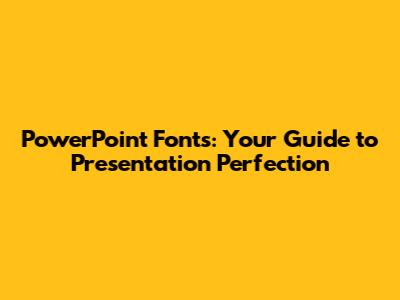
PowerPoint Fonts: Your Guide To Presentation Perfection
Hey everyone! Ever feel like your PowerPoint presentations could use a little oomph? Maybe they're a bit… bland? Well, a big part of creating engaging presentations boils down to choosing the right fonts. PowerPoint fonts aren't just about picking something that looks pretty; they play a huge role in how your audience perceives your message. They can make your slides look professional, fun, or anything in between! Let's dive into the world of PowerPoint fonts and explore how you can use them to create killer presentations. This guide is all about helping you understand everything from the best fonts to use, where to find them, and how to avoid common font-related pitfalls. So, grab a cup of coffee, and let's get started!
Why Fonts Matter in PowerPoint Presentations
Okay, so why are PowerPoint fonts so important, anyway? Think of your presentation as a visual story. The text is the core of that story, and the font is the voice that tells it. It's the first thing your audience sees, and it sets the tone for everything else. Choosing the right font can make the difference between a presentation that captivates and one that puts people to sleep. Seriously! A well-chosen font can make your information more accessible, easier to read, and more memorable. It helps to establish your brand identity, create visual interest, and guide the viewer's eye. On the other hand, using the wrong font can confuse your audience, make your slides look cluttered, and even undermine your credibility. Choosing fonts is like choosing the right clothes to look professional, it's about making sure your message is well received and understood. You wouldn't wear mismatched socks to an important meeting, right? The same goes for fonts! Imagine trying to read a presentation with Comic Sans in tiny font size. Not a good look, and definitely not reader-friendly. So, selecting the right fonts is critical for effective communication. So, understanding how to use fonts to enhance your message is the key to creating presentations that stick with your audience long after you've finished speaking. Now, let’s dig a little deeper into the impact PowerPoint fonts have on the overall presentation.
Readability and Legibility
One of the most important things when selecting PowerPoint fonts is readability. Readability refers to how easily individual characters can be recognized, while legibility refers to how easily the text as a whole can be read. These two factors work hand-in-hand to determine whether your audience can effortlessly absorb the information you're presenting. When you choose a font for your presentation, you need to think about the environment in which it will be viewed. Is it a brightly lit room or a dimly lit one? Will people be viewing the presentation on a large screen or their laptops? These factors can affect how easy the font is to read. Choose fonts that are clear and simple and make sure the size is appropriate for the viewing environment. Avoid fonts that are overly stylized or have complex serifs, as these can be difficult to read at a distance. You should be using sans-serif fonts such as Arial, Calibri, or Helvetica for body text and headers. These are generally more readable on screens. Make sure your font size is large enough. A good rule of thumb is to use a font size of at least 24 points for body text and 32 points or more for headings. You should also consider the use of color and contrast. Make sure your text contrasts well with the background color to make it easier to read. For example, black text on a white background is generally the most readable option. Proper use of fonts will make your presentations look cleaner and more professional. Ultimately, the goal is to create a presentation that is easy for your audience to understand and remember. By choosing readable and legible fonts, you're making a positive impact on the overall effectiveness of your presentation. By keeping these principles in mind, you can select fonts that effectively communicate your message and engage your audience.
Establishing Tone and Style
Besides readability, PowerPoint fonts play a massive role in setting the tone and style of your presentation. Fonts can be used to convey a variety of moods and personalities. Selecting the right font can help you to reinforce your message and connect with your audience on an emotional level. You must know what messages do you need to send to your audience. For a formal presentation, such as a business proposal, you might want to use a more traditional font, such as Times New Roman or Arial. These fonts convey professionalism and sophistication. In contrast, for a more informal presentation, like a company update or a fun project, you might choose a more modern font, such as Open Sans or Lato. These fonts can help to create a more relaxed and engaging atmosphere. The style of your font can also reflect your brand's personality and values. Consistency is also the key. Using the same fonts throughout your presentation will help to create a cohesive and professional look. Avoid using too many different fonts. A good rule of thumb is to stick to two or three fonts at most. Use one font for headings, another for body text, and potentially a third for emphasis or special effects. Think about your target audience. Who are you trying to reach with your presentation? What kind of tone and style will resonate with them? Do your research. Look at other presentations in your industry or field. What fonts are they using? What kind of tone and style are they conveying? Selecting the perfect font will strengthen the impact of your message and keep your audience captivated. By carefully choosing the fonts for your presentation, you can create a unique visual identity that aligns with your brand and message. So, go forth and create presentations that are both informative and visually stunning.
Enhancing Visual Appeal
Finally, let's talk about the visual appeal of your presentations, and how PowerPoint fonts fit into that. Fonts are a critical visual element and can significantly enhance the overall look and feel of your slides. Your font choice can make your presentation pop and make it more interesting to look at. One way to enhance visual appeal is to choose fonts that complement each other. Avoid using fonts that clash or are too similar. Use a combination of fonts to create visual variety and interest. It can be a heading font and a body font. Another way to enhance visual appeal is to use font size, weight, and color strategically. Use larger font sizes for important headings and subheadings. Use bold or italic fonts to highlight key information. Use color to create contrast and draw attention to specific elements. Experiment with different font pairings. There are many online resources that can help you find font combinations that work well together. Keep in mind that simplicity is key. Avoid using too many fonts or styles, as this can make your presentation look cluttered and unprofessional. Think about the overall design of your presentation. The font is just one element of the visual design. Make sure your font choices align with the overall theme and style of your presentation. When used effectively, PowerPoint fonts can transform a dull presentation into a visual treat. In the end, the right font can make your presentation memorable and more enjoyable to experience. Remember, your goal is to create a presentation that is both informative and visually engaging.
Best Fonts to Use in PowerPoint
Alright, now that we've covered why fonts are so important, let's talk about some of the best PowerPoint fonts you can use. Choosing the right font can be a game-changer! Here’s a breakdown of some of the top picks and why they work so well.
Sans-Serif Fonts
Sans-serif fonts are generally the go-to for presentations, especially on screens. They are clean, modern, and easy to read. Sans-serif fonts are fonts that do not have small lines at the end of each stroke. Here are some of the best:
• Arial: A classic, clean, and widely available font. It's a safe bet for any presentation.
• Helvetica: Another timeless choice, Helvetica is known for its clarity and legibility. It's great for both headings and body text.
• Calibri: The default font for many Microsoft Office applications, Calibri is modern and easy on the eyes.
• Open Sans: A popular Google font that's free to use and looks great on-screen. It's very versatile.
• Lato: Another excellent Google font, Lato has a friendly and approachable feel.
These fonts are perfect for conveying a modern, clean, and professional look. They are incredibly versatile and work well in various settings, from business presentations to educational lectures.
Serif Fonts
Serif fonts have small lines at the end of each stroke, which can add a touch of elegance and sophistication. They can be used effectively for headings or for a more classic feel, but be careful with them for body text, as they can sometimes be less readable on screens. Here are a few options:
• Times New Roman: A classic serif font that conveys a sense of formality and tradition.
• Georgia: Designed for readability on screens, Georgia is a great choice for both headings and body text.
Serif fonts can be a good choice if you're going for a more traditional or formal style, but make sure the font size is large enough to ensure readability.
Other Font Considerations
While Arial, Calibri, Helvetica, and Open Sans are generally good choices, remember to consider:
• Font Pairing: Don't just pick one font! Try pairing a sans-serif for headings with a different sans-serif or a serif for body text.
• Font Weight: Use different font weights (bold, regular, light) to create visual hierarchy.
• Font Size: Keep your font sizes large enough for easy viewing (at least 24 points for body text).
• Font Color: Ensure good contrast between your font and background colors.
Where to Find PowerPoint Fonts
So, you’re ready to start using some amazing PowerPoint fonts but where do you find them? The good news is, you have a ton of options!
PowerPoint's Built-In Fonts
PowerPoint comes pre-loaded with a variety of fonts, including Arial, Calibri, Times New Roman, and many more. These fonts are a great starting point, and they're readily available for all your presentations. You can access the font options by clicking on the text box and going to the font dropdown menu in the Home tab. PowerPoint also makes it easy to add more fonts, including those you have downloaded or purchased. You can easily navigate the font menu and search for the perfect font. Remember, a good starting point is often the best. These built-in fonts are great for most presentations!
Google Fonts
Google Fonts is a fantastic resource with a massive library of free, open-source fonts. They are all designed to be web-friendly, which means they look great on screens and are easy to integrate into your presentations. To use Google Fonts, you can download the fonts to your computer and install them. Then they will be available in PowerPoint, just like any other font. Check out Open Sans and Lato – they are very popular and look great. Google Fonts is an awesome source for high-quality, free fonts that can elevate your presentations.
Other Font Sources
There are many other sources for fonts as well, but always ensure you have the appropriate license for commercial use. Here are some resources:
• Adobe Fonts (formerly Typekit): If you have an Adobe Creative Cloud subscription, you get access to a huge library of high-quality fonts. These can be easily integrated into your PowerPoint presentations.
• Font Bundles and Creative Market: These sites offer a variety of fonts, often at a lower cost than individual font purchases. They have tons of fonts to choose from!
• Font Squirrel: A great resource for free fonts that are licensed for commercial use.
When exploring these options, pay close attention to the font licenses. Some fonts are free for personal use only, while others require a commercial license if you're using them in a professional context. Always check the terms and conditions to avoid any legal issues.
How to Use Fonts Effectively in PowerPoint
Now that you know what fonts to use and where to find them, let's talk about how to use them effectively in your presentations. Using fonts effectively is about creating a presentation that's easy to read, visually appealing, and reflects your message. Here are some key tips for making the most of your PowerPoint fonts.
Choosing and Pairing Fonts
• Limit your fonts: Don't go overboard! Stick to 2-3 fonts maximum. One for headings, one for body text, and maybe a third for emphasis or special effects.
• Consider font pairings: Some fonts work well together, while others clash. Use a tool like Google Fonts to explore pairings. Remember, less is often more!
• Prioritize readability: Always choose fonts that are easy to read, especially on screens. Sans-serif fonts are generally a better choice for body text.
Font Size and Emphasis
• Use appropriate font sizes: Make sure your text is large enough to be easily read. A good rule of thumb is at least 24 points for body text and 32 points or larger for headings.
• Use font weight and styles for emphasis: Use bold, italic, or underlining sparingly to highlight key information. Avoid overusing them, as this can make your slides look cluttered.
• Create visual hierarchy: Use different font sizes and weights to create a clear hierarchy of information. This helps your audience understand what's most important.
Formatting and Consistency
• Maintain consistency: Use the same fonts and styles throughout your presentation. This creates a cohesive and professional look.
• Align your text: Use consistent alignment for text (left, center, or justified). Avoid mixing alignments.
• Use whitespace effectively: Don't overcrowd your slides. Use whitespace (the empty space around your text and images) to make your slides more readable and visually appealing.
Tips for Specific Elements
• Headings: Use a larger, bolder font for headings to grab attention and separate sections.
• Body Text: Choose a clear, readable font in a size that's easy to read at a distance.
• Bullet Points: Use a consistent font for bullet points and keep the text concise.
By keeping these tips in mind, you can create a presentation that is both informative and visually engaging. Applying these tips will greatly enhance the impact of your message and keep your audience captivated. Remember to keep it clean, clear, and consistent for the best results.
Avoiding Common Font Mistakes
Even the most experienced presenters sometimes make mistakes. Let's look at some common pitfalls to avoid when using PowerPoint fonts.
Overusing Fonts
• Too many fonts: Don't use too many different fonts! It can make your slides look cluttered and unprofessional. Stick to 2-3 fonts max.
• Mixing fonts that clash: Choose fonts that complement each other. Avoid mixing fonts that are too similar or that have conflicting styles.
Poor Readability
• Small font sizes: Make sure your font sizes are large enough to be easily read from a distance. Use at least 24 points for body text.
• Poor contrast: Make sure your text contrasts well with the background color. Avoid using light text on a light background or dark text on a dark background.
Inconsistent Formatting
• Inconsistent font usage: Use the same fonts and styles throughout your presentation. Inconsistent formatting can make your slides look unprofessional.
• Misaligned text: Make sure your text is consistently aligned (left, center, or justified). Avoid mixing alignments.
By avoiding these common mistakes, you can create a presentation that is easy to read, visually appealing, and professional-looking. Pay close attention to these common issues, and you'll be well on your way to crafting a presentation that impresses your audience. The goal is to create a seamless and engaging experience for your audience.
Conclusion: Mastering PowerPoint Fonts
Alright, folks, that wraps up our deep dive into PowerPoint fonts! We've covered why fonts matter, the best fonts to use, where to find them, and how to use them effectively. Remember, selecting the right fonts is a crucial part of creating presentations that engage and inform your audience. By applying the tips and tricks we've discussed, you can elevate your presentations from good to great.
• Choose fonts that are readable and legible.
• Set the tone and style of your presentation.
• Use fonts to enhance visual appeal.
• Pick fonts that are in line with your message.
Now go forth, experiment with different fonts, and create presentations that wow your audience. Your presentations will be more engaging, professional, and memorable. Good luck, and happy presenting! I hope this guide helps you. And remember, keep it simple, keep it clear, and keep it consistent! Until next time, keep those presentations looking sharp! Feel free to experiment with different fonts and create visually stunning presentations. Happy presenting! And that's all, folks! Hope you learned something cool today. See ya!